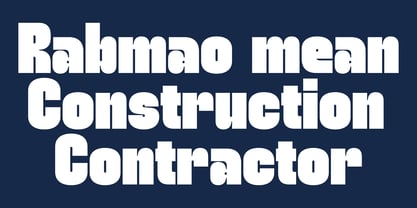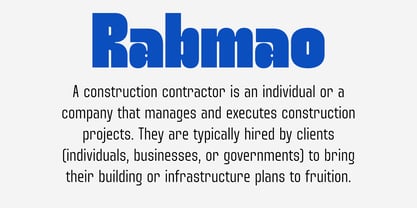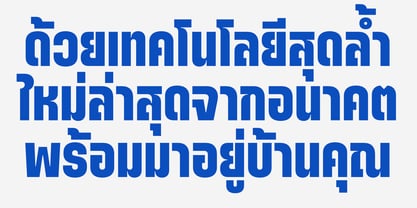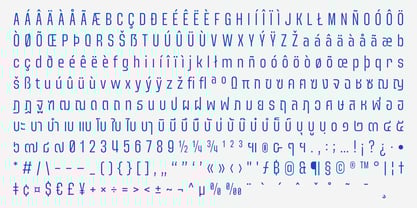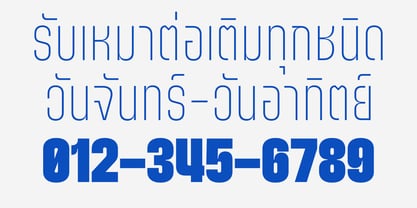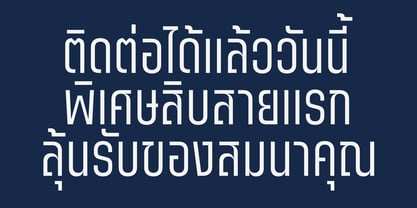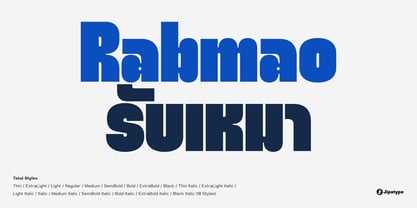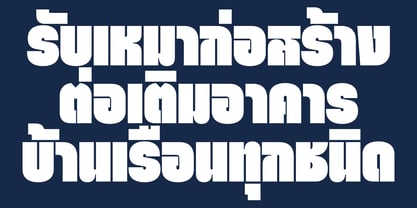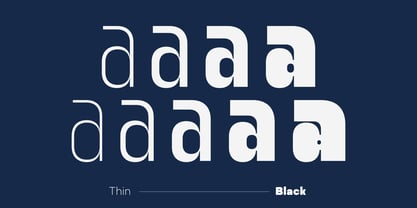
Rabmao
by Jipatype
The Rabmao Font Family was designed by Anupap Jaichumnan and published by Jipatype. Rabmao contains 18 styles and family package options.
Rabmao, a bilingual (Thai & Latin) Sans Serif typeface designed with a strong, modern, and reliable personality. The name "Rabmao" (รับเหมา) is Thai for "Contractor," a name that perfectly encapsulates the font's core essence: stability, robustness, and clear structure. It's built to communicate trust and professionalism in every application.
Rabmao's most defining characteristic is its clever blend of geometric forms with distinctive, sharp ink traps. These functional details not only create a stunning visual identity at large display sizes but also enhance legibility when used in smaller text or on digital screens.
Key Features
• Robust Structure: The overall design is solid and stable, evoking a sense of architectural precision and reliability.
• Distinctive Character: Prominent ink traps at the junctions of strokes give the font a memorable and unique personality that sets it apart.
• Extreme Versatility: With a comprehensive family of 9 weights, from the delicate Thin to the powerful Black, and corresponding Italics for each (totaling 18 styles), Rabmao is a true workhorse flexible enough for any project.
Recommended Uses
• Branding & Corporate Identity: Ideal for tech companies, architectural firms, engineering, construction businesses, or any brand aiming for a modern and trustworthy image.
• Headlines & Display: The heavier weights (Bold, ExtraBold, Black) make a powerful impact on posters, magazine covers, packaging, and advertising campaigns.